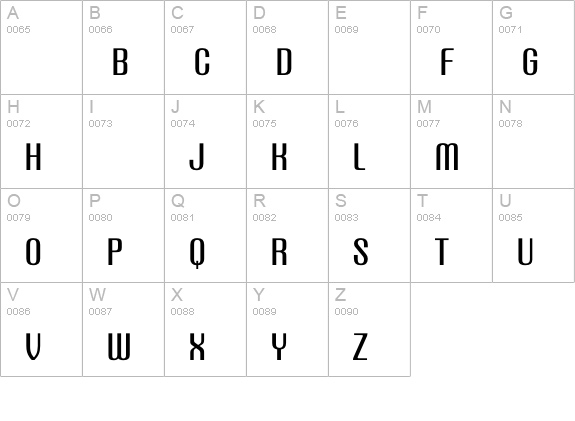
QuestLight Font Details
QuestLight is a captivating and elegant font that exudes sophistication and modernity. With its sleek lines and gracefully curved letterforms, this font is perfect for adding a touch of refinement to your designs. Its clean and minimalist appearance makes it versatile and suitable for a wide range of projects, from branding and logos to editorial designs and invitations. What sets QuestLight apart is not only its aesthetic appeal, but also its accessibility. This font is available for free, allowing designers of all levels to benefit from its beauty and versatility. Whether you're a seasoned professional or a beginner, QuestLight offers the opportunity to create stunning designs without any financial constraints. Downloading QuestLight is a breeze, as it is freely available at FontsMarket.com. This user-friendly platform ensures that you can access and use this font with ease. Simply visit the website, search for QuestLight, and with a few clicks, you'll have this incredible font at your fingertips. The versatility of QuestLight knows no bounds. Whether you're designing a sleek corporate website, a stylish magazine layout, or a unique wedding invitation, this font will elevate your design to new heights. Its clean and legible characters add a touch of elegance to any project, while still maintaining readability. QuestLight is a font that combines both form and function. Its meticulous design ensures that every character is perfectly balanced and harmonious, providing a seamless and cohesive look to your designs. The striking letterforms and refined curves make this font an ideal choice for both print and digital applications. Whether you're a designer, a business owner, or a creative enthusiast, QuestLight is a must-have addition to your font library. Its timeless appeal and accessibility make it a valuable asset for any design project. Download QuestLight for free today at FontsMarket.com and embark on a journey of creativity and elegance.